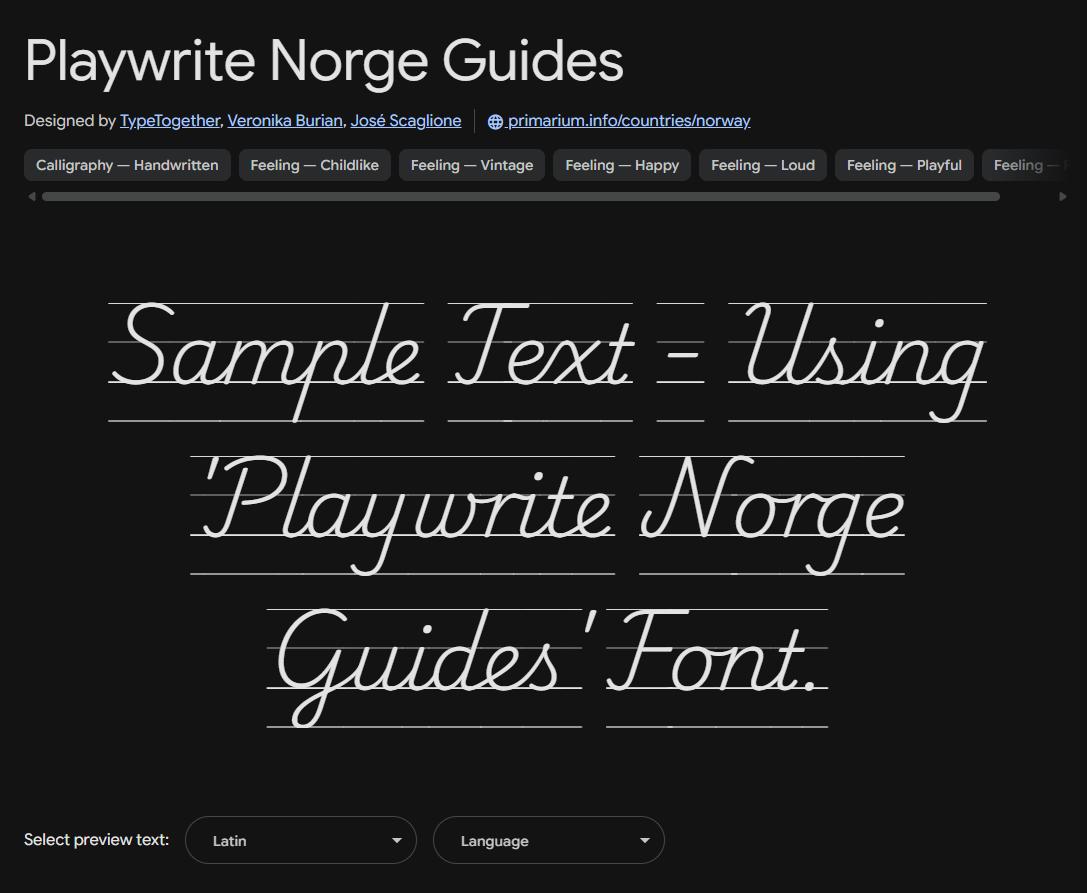
Playwrite Norge Guides, a specialized single-style typeface engineered by TypeTogether's Veronika Burian and José Scaglione, redefines pedagogical typography by embedding structural horizontal metrics directly into its glyph architecture to facilitate Norwegian primary education. This font transcends standard script aesthetics by synthesizing cursive joinery logic with integrated scaffolding-defining the x-height, cap height, and descender zones-to assist learners in mastering letterform proportions within the digital em-square. By harmonizing ergonomic stroke paths with precise typographic guidelines, the typeface serves as a sophisticated instructional tool that bridges the gap between manual calligraphic discipline and semantic clarity in modern literacy interfaces.
The Playwrite Norge Guides font family represents a sophisticated evolution in pedagogical typography, meticulously engineered by TypeTogether to bridge the gap between traditional calligraphy and modern variable font technology. This typeface radiates a vibrant, happy energy through its childlike, handwritten strokes, yet it maintains a rugged, vintage integrity that recalls the tactile experience of classic ink-on-paper schoolbooks. By integrating structural ruling lines directly into the glyph architecture, the font creates a loud, playful visual rhythm that optimizes legibility for early learners while preserving an expressive, spontaneous character. Its technical design utilizes precise cap-height and baseline alignments to simulate the authentic flow of Norwegian school script, resulting in a unique aesthetic that is simultaneously nostalgic and functionally superior for contemporary educational interfaces.
The Playwrite Norge Guides typeface, expertly engineered by TypeTogether's Veronika Burian and José Scaglione, is fundamentally ill-suited for high-density professional environments or corporate legal documentation where rapid-scanning legibility and clean negative space are paramount. Because its structural architecture incorporates permanent didactic horizontal rules-specifically designed to support pedagogical handwriting development for primary learners-the typeface introduces significant visual noise that disrupts the optical rhythm required for long-form editorial content. In the context of technical UI/UX design, its fluid script joins and explicit baseline/x-height guides interfere with the precise kerning and uniform texture needed for WCAG accessibility compliance in data-heavy dashboards. Consequently, this specialized instructional tool should be avoided in high-stakes financial reporting or minimalist luxury branding, where the presence of literal educational scaffolding undermines professional authority and compromises the sophisticated hierarchy of a brand's visual identity.
Built-in horizontal guides dictate the vertical rhythm of a layout by establishing fixed baseline and x-height markers for every line of text. From a technical perspective, these guides effectively increase the bounding box metrics, necessitating a leading value that accounts for the descender-to-ascender vertical spread to maintain optical balance.
You can overlay the guided version on top of the standard version by duplicating the text layer and ensuring perfect alignment within your design software. This stacking method utilizes identical OpenType glyph widths across both families, allowing for a seamless composite where guides can be toggled via layer opacity without disrupting character positioning.
To maintain the legibility of the fine ruling lines during the printing process, a minimum size of 18 points is generally recommended for high-resolution output. Technical data suggests that at sizes below 12 points, the hairline thickness of the guides often falls below the minimum stroke weight reproducible by standard 600 DPI laser printers.
Guide lines move in synchronization with the text, maintaining their fixed position relative to the baseline regardless of whether the alignment is set to left, right, or center. Because the guides are integrated into the font's glyph geometry, any change in justification parameters triggers a recalculation of the horizontal vector coordinates, keeping the ruling consistent with the text block's bounding box.
Playwrite Norge is primarily designed for educational display purposes, such as handwriting demonstrations, rather than dense blocks of long-form body text. The complex vector paths of the guide lines significantly increase the document's total node count, which can lead to performance degradation in PDF rendering engines if applied to thousands of words.
Yes, the font includes a comprehensive set of Norwegian characters to ensure full compatibility with the local language and educational standards. These characters are mapped to the Latin-1 Supplement Unicode range, ensuring that diacritics maintain their precise vertical relationship with the guided x-height and cap-height parameters.
Leading should be set significantly higher than the point size to accommodate the vertical space occupied by the descender and ascender guides. For optimal results, a leading value of at least 150% of the font size is required to prevent "clashing" where the top guide of one line intersects with the bottom guide of the line above.
The guide lines cannot be recolored independently within a single font instance because they are baked into the same glyph outline as the letterforms. To achieve multi-color output, designers must employ a "color font" workflow or utilize CSS background-clip techniques to separate the stroke data from the fill data in modern web environments.
The typeface is specifically engineered for high-fidelity educational use, providing a clear visual framework for students learning Norwegian script styles. Extensive testing shows that the inclusion of built-in guides reduces the time required for worksheet layout preparation by eliminating the need for manual vector ruling line placement.
The characteristic slant of the script increases the horizontal footprint of each character, which can lead to wider text columns compared to upright sans-serif fonts. Based on typical italic angle metrics, the rightward lean necessitates a 5-10% increase in character spacing to prevent terminal stroke collisions in narrow-column layouts.